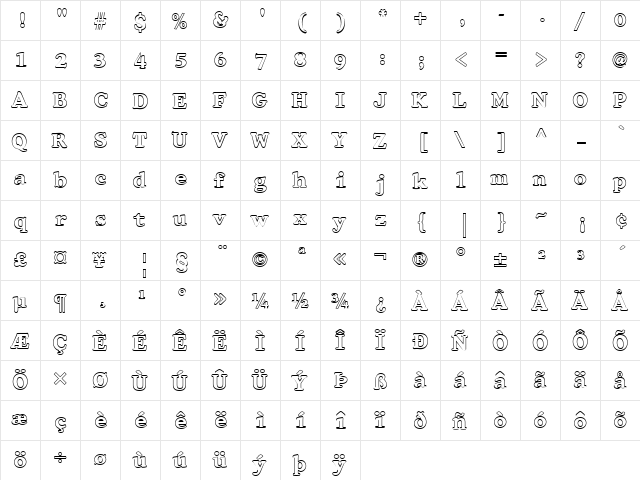
FZ ROMAN 32 HOLLOW Normal Font Preview
FZ ROMAN 32 HOLLOW Normal
FZ ROMAN 32 HOLLOW Normal Font Details
Design Context for FZ ROMAN 32 HOLLOW Typeface
FZ ROMAN 32 HOLLOW offers clean, dependable letterforms without strong stylistic allegiance, making it a practical choice for designers who need flexibility.